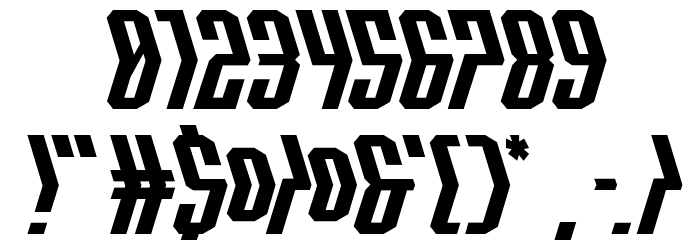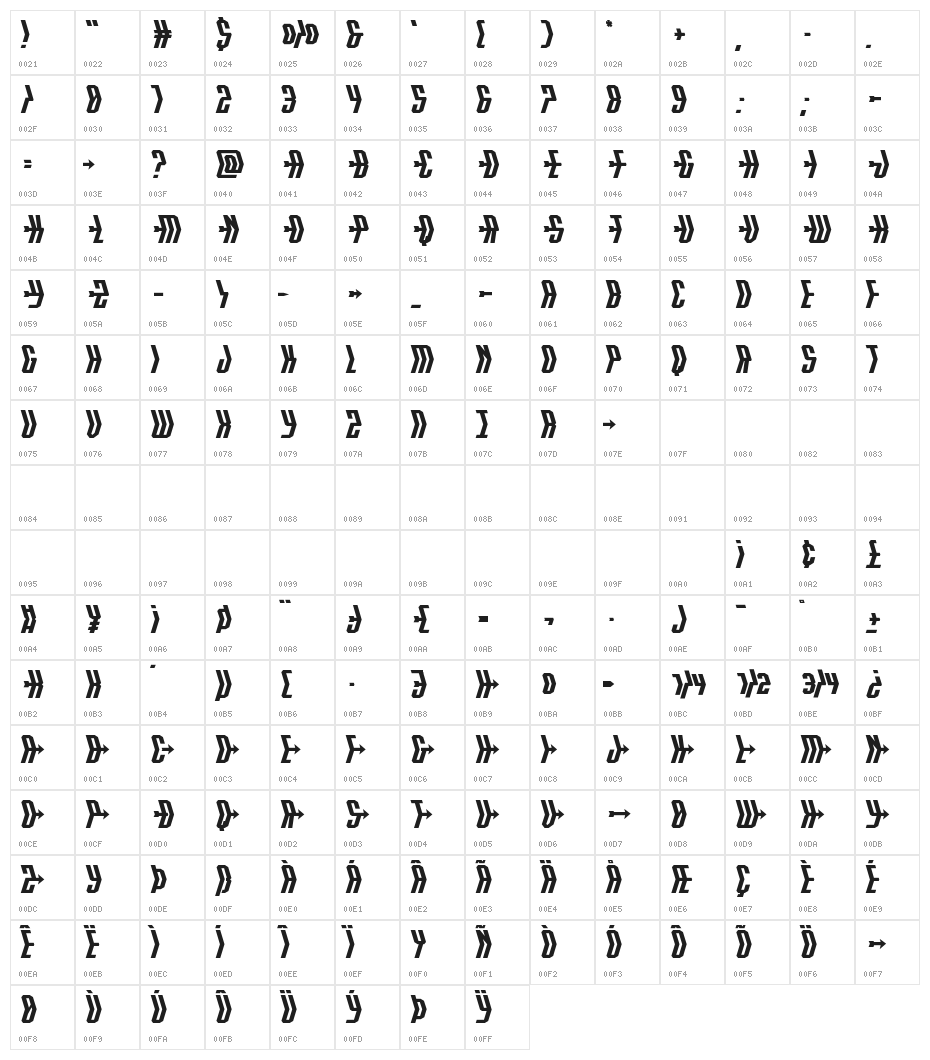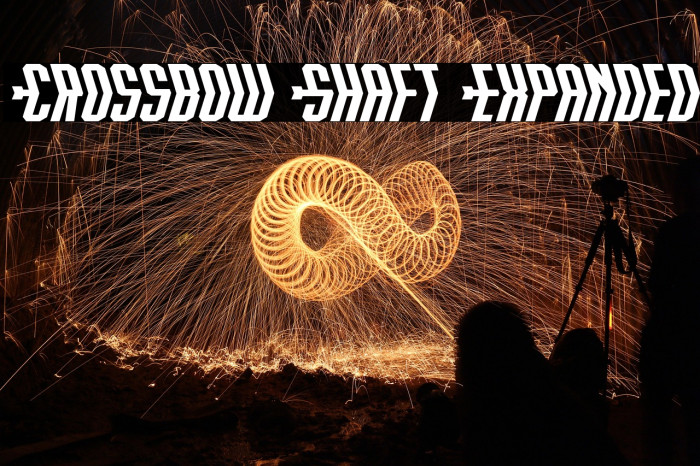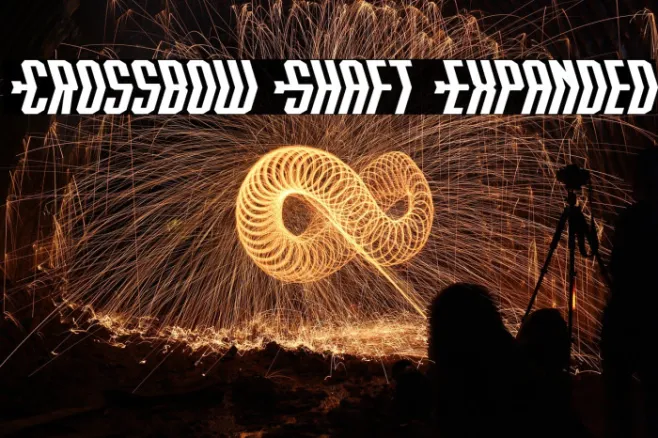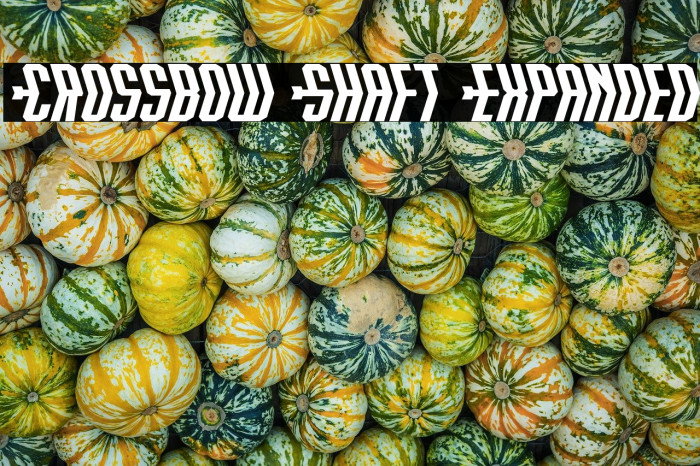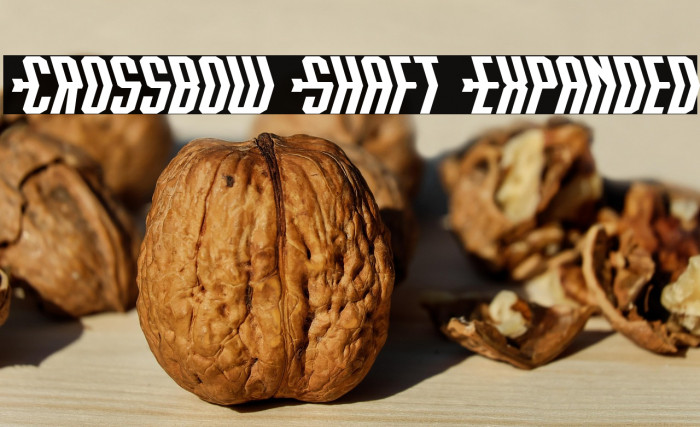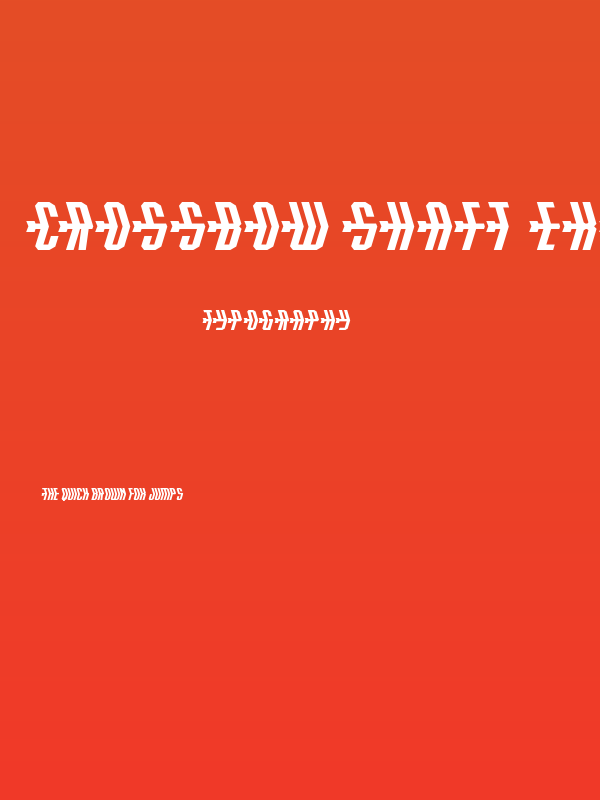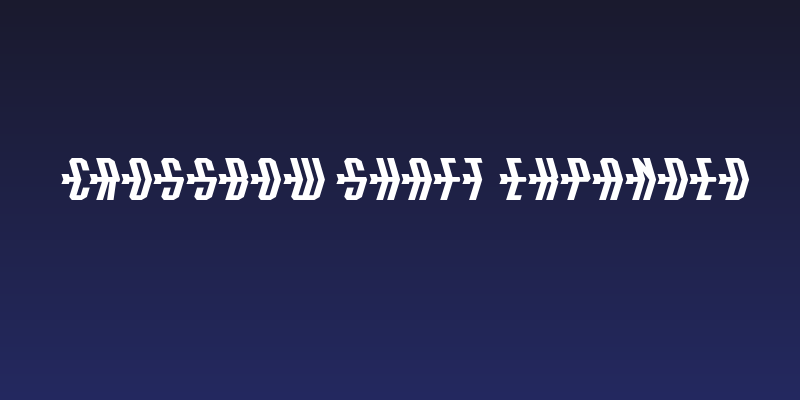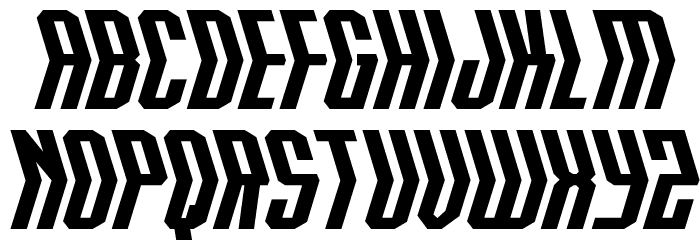
Crossbow Shaft Expanded Font
Crossbow Shaft Expanded Description
This font exhibits a bold, angular design with a futuristic and dynamic appearance. The characters are sharply defined with a distinct slant, giving them a sense of motion and energy. The uppercase letters are particularly striking, with a geometric style that emphasizes sharp angles and straight lines. The lowercase letters maintain the same angular aesthetic, ensuring consistency across the typeface. Numbers and special characters are designed to match the bold, energetic style of the alphabet, making this font suitable for attention-grabbing headlines and modern design projects.
Proposed ProjectsIdeal for sci-fi themed designs, video game graphics, posters, and branding that requires a modern, energetic look.